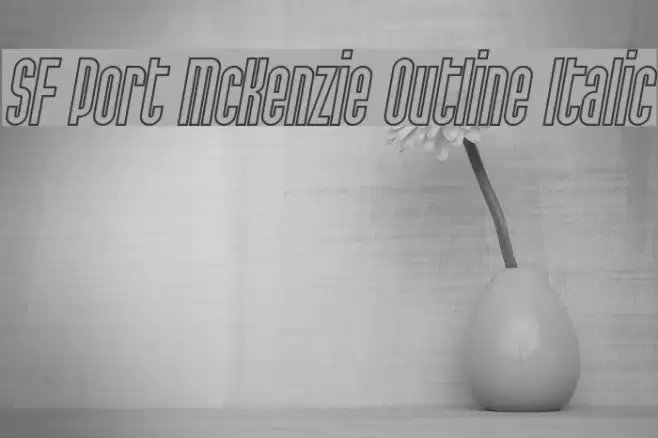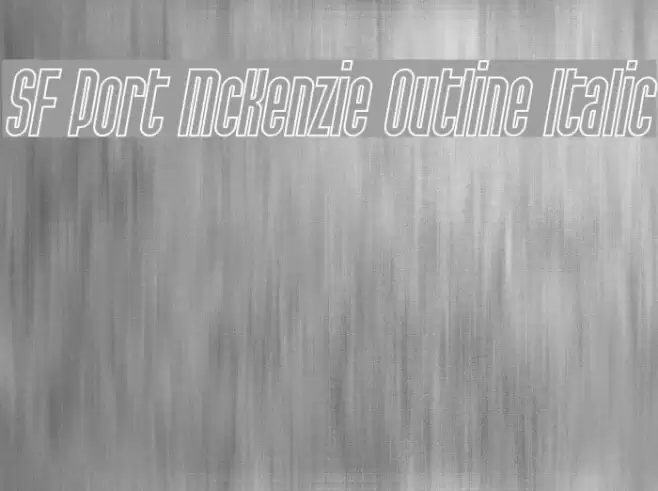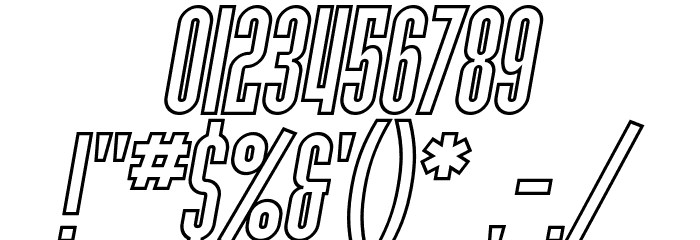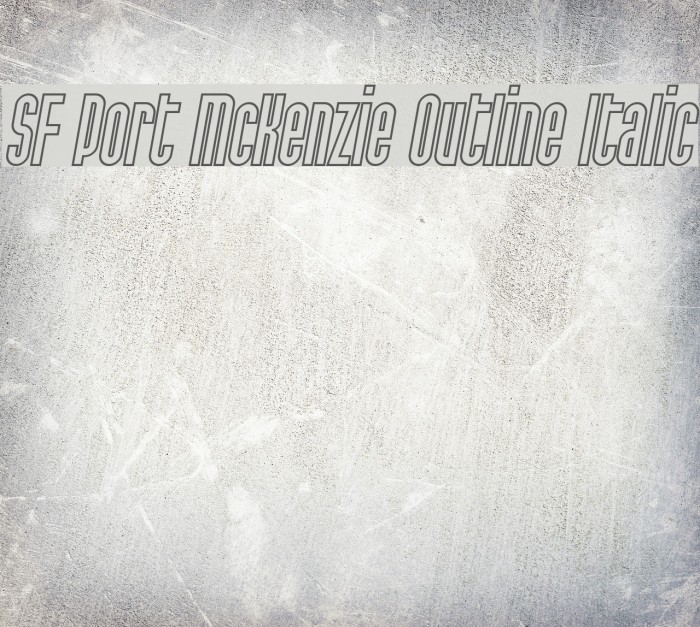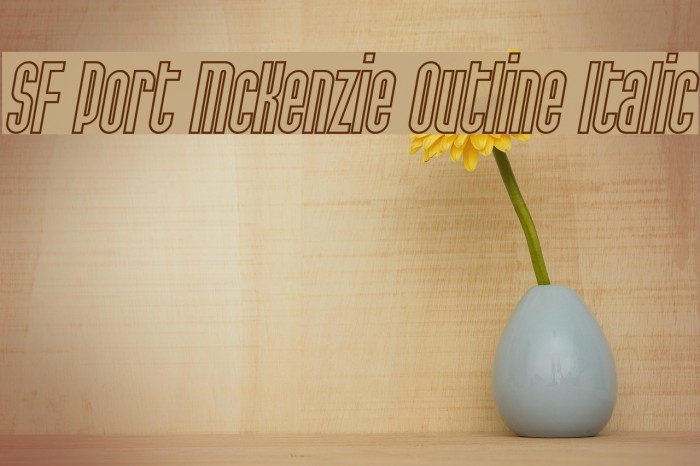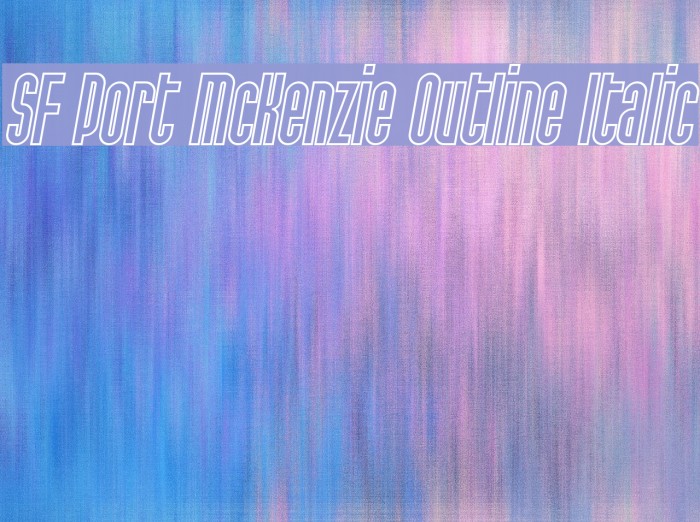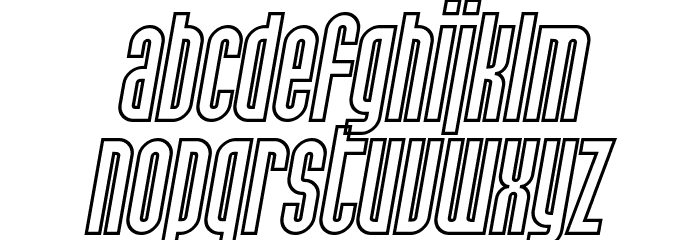
SF Port McKenzie Outline Italic Font
SF Port McKenzie Outline Italic Description
This font features a bold, outlined style with a distinct italic slant, giving it a dynamic and modern appearance. The characters are uppercase and lowercase alphabets, numerals, and a variety of special symbols. The outline effect adds a unique dimension, making it stand out in any design. The strokes are consistent in width, providing a uniform look across all characters. The italic angle adds a sense of movement and energy, making it suitable for attention-grabbing headlines or titles. The spacing between characters is tight, enhancing the compact and cohesive look of the text.
A bold, outlined, italic font with a modern and dynamic style from Sans Serif fonts.
- Proposed Projects: Ideal for posters, logos, branding materials, and any design requiring a bold statement.
- Character Spacing: Tight